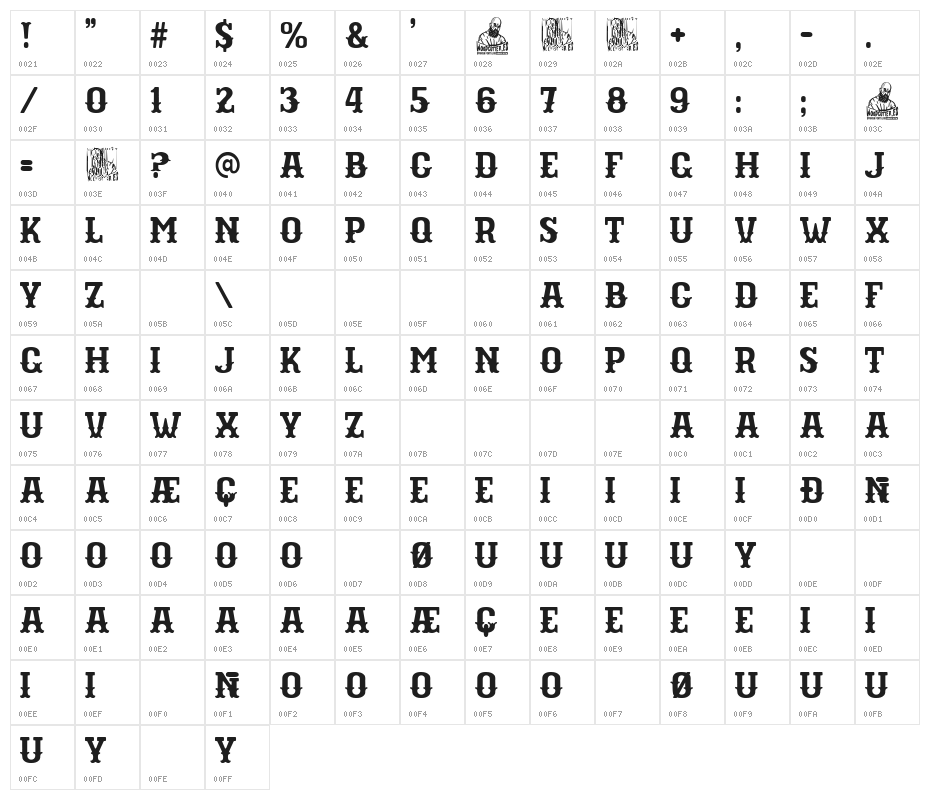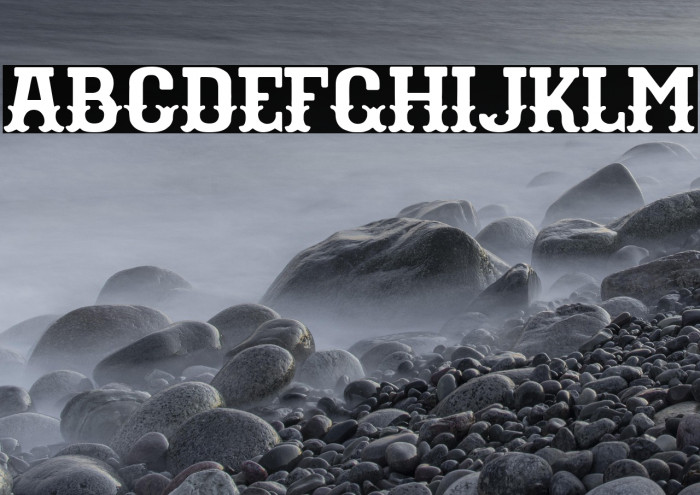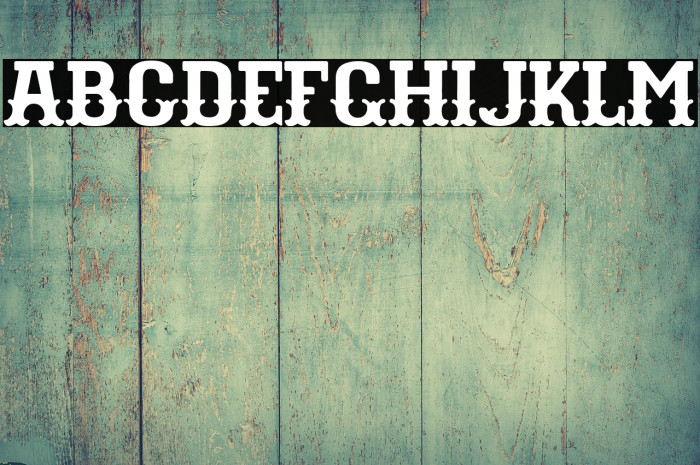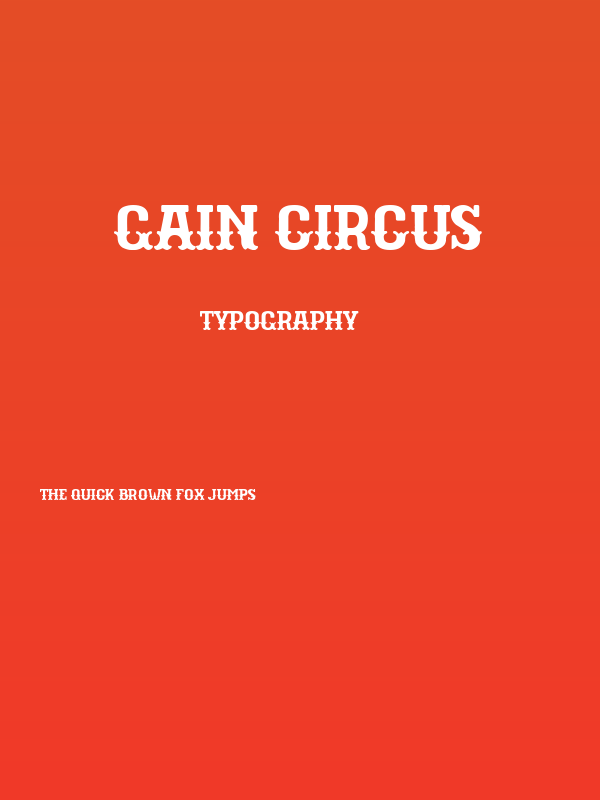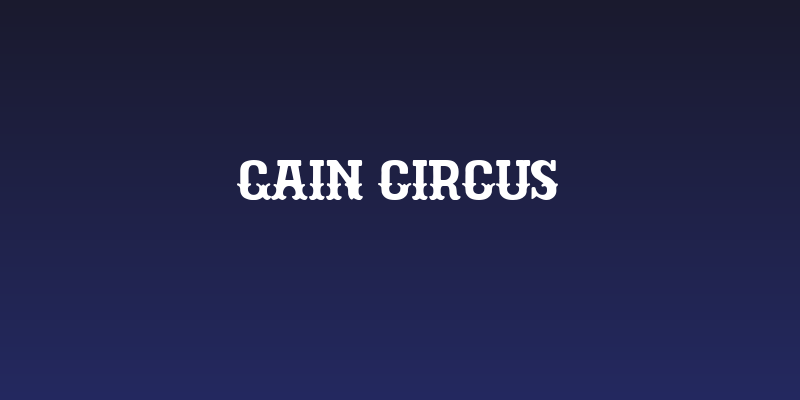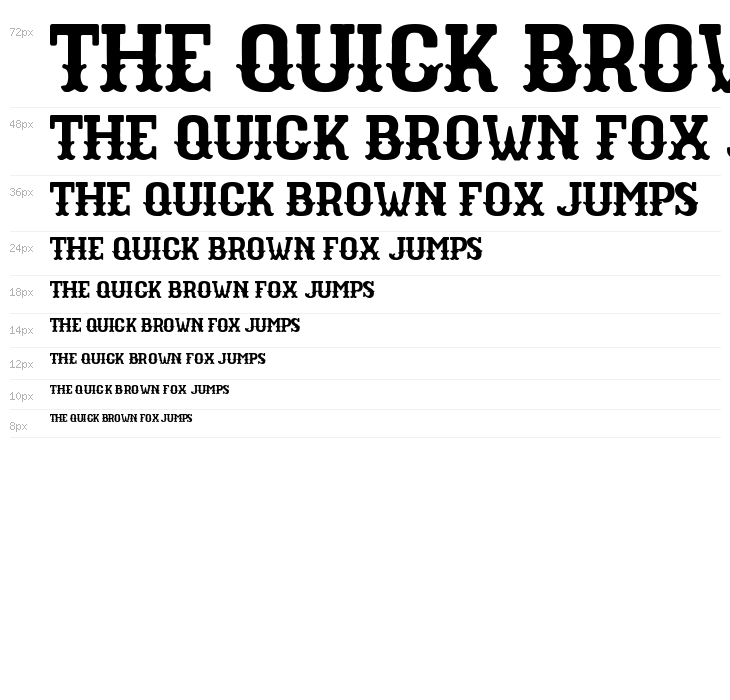
Gain Circus Font
Gain Circus Description
A bold decorative display font with slab serif characteristics, featuring pronounced ornamental elements on the serifs and consistent stroke thickness throughout the characters. The letterforms are uppercase, with wide proportions and strong visual impact, making it highly distinctive and attention-grabbing.
| Overall Style | Decorative, Vintage, Playful |
| Use Case | Headlines, Posters, Logos, Signage |
| Proposed Projects | Posters, circus or carnival themes, event branding, signage, vintage-inspired designs. |